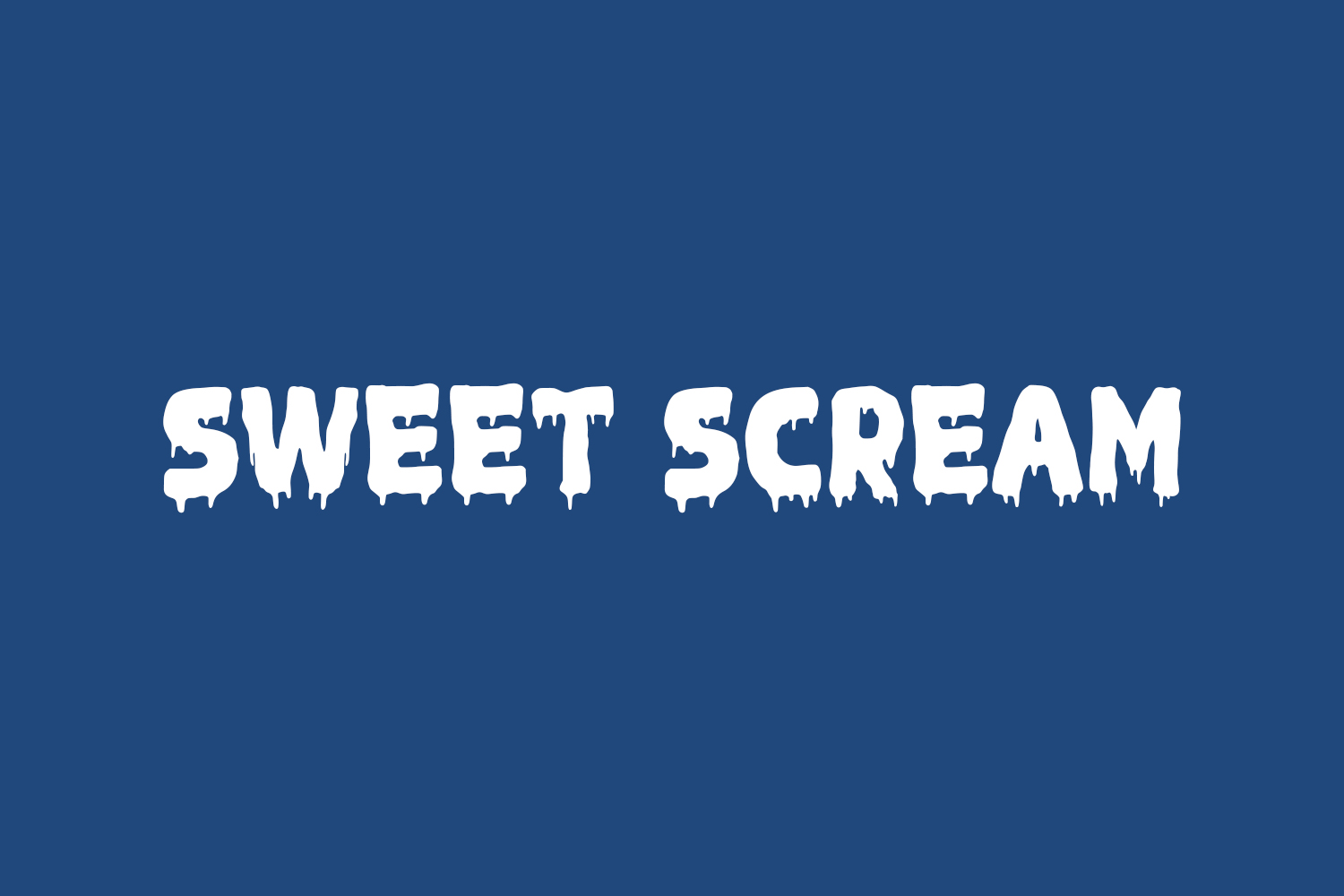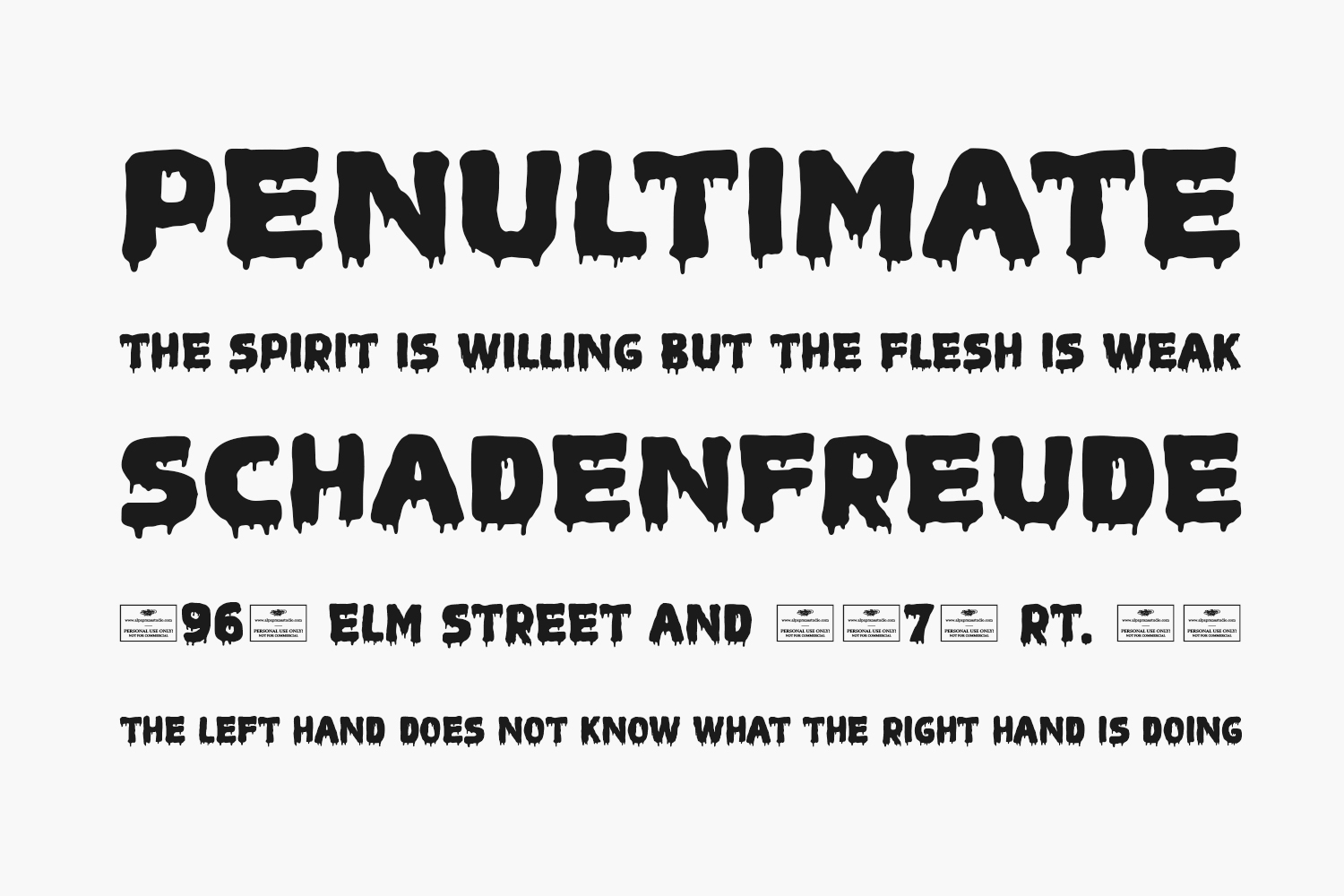
Sweet Scream Free Font is a one-of-a-kind display font with a spooky yet charming character. Whether you’re incorporating it into crafts, digital design, presentations, or crafting greeting cards, this font has the potential to become your preferred choice for any occasion, radiating both friendliness and uniqueness. Sweet Scream Free Font is a demo and free for personal use only. Please purchase the full version for commercial use.
Designed by Alpaprana Studio